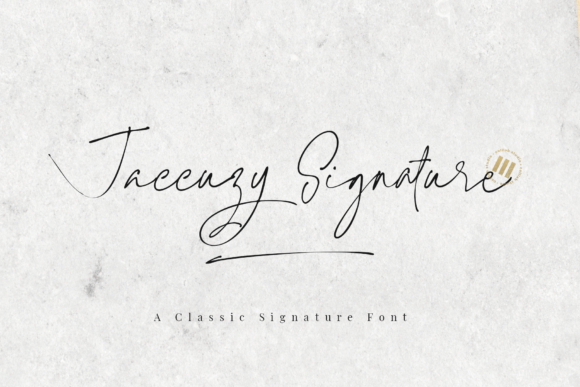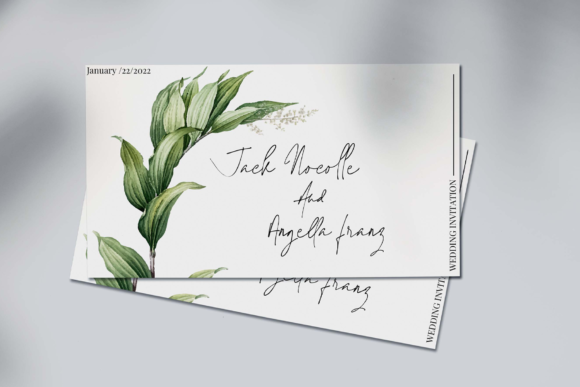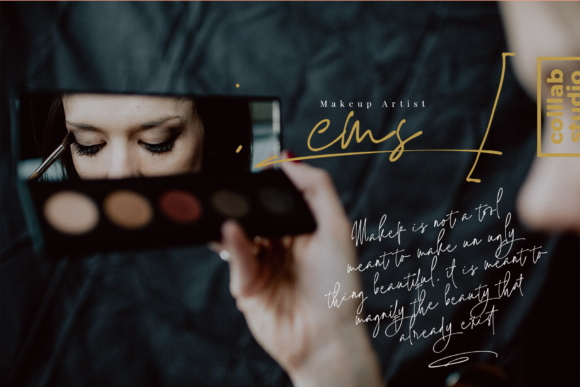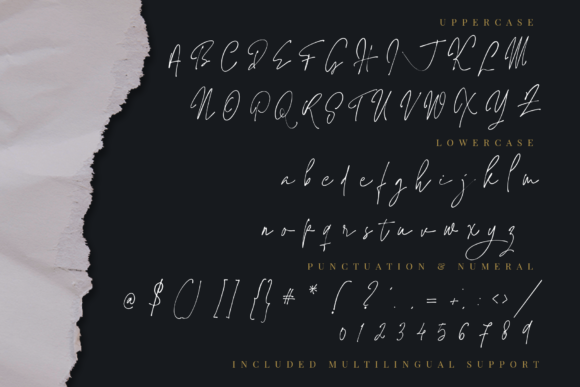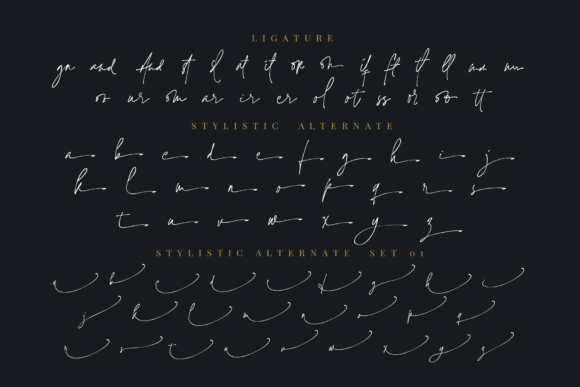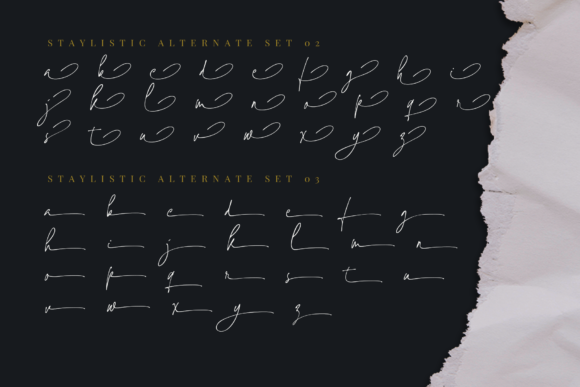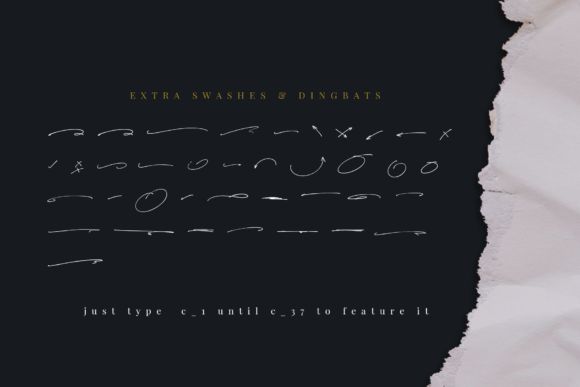
Unleashing the Art of Handwritten Charm
There’s something magical about putting pen to paper and watching your thoughts flow onto the page. The sound of scribbling, the smell of fresh ink, and the satisfaction of seeing your words come alive – it’s a feeling that never gets old. For designers, finding the perfect font to capture that handwritten essence can be a game-changer.
Enter the Jaccuzy Signature Font, a timeless and incredibly relaxed handwritten font that’s sure to elevate your designs. Whether you’re crafting wedding invitations, creating quotes, or designing logos, this font brings a touch of elegance and sophistication to every project. Its PUA encoding makes it easy to access all the glyphs and swashes, giving you endless possibilities to customize your designs. With its varying baseline, smooth lines, and gorgeous glyphs, the Jaccuzy Signature Font is a valuable addition to any designer’s toolkit.
Jacuzzi Signature Font Key Features
- Unique Characteristics: The Jacuzzi Signature Font features a distinctive, modern design that is both elegant and sophisticated. The font’s unique characteristics include a flowing, cursive style with subtle flair and a sense of movement.
Jaccuzy Signature Font Review
As a designer, I was excited to dive into the Jaccuzy Signature Font. Here’s my honest review:
- Unique and stylish design: The Jaccuzy Signature Font has a distinct, modern look that can add a touch of elegance to any project.
- High-quality fonts: The font is well-designed and smooth, making it perfect for digital and print applications.
- Wide character set: The font includes a comprehensive set of characters, including international characters and ligatures.
- Limited font sizes: The font may not be suitable for very large or very small font sizes, as it can become distorted.
- No bold or italic variants: While the font is stylish, it’s not available in bold or italic variants, which can limit its use in certain applications.
Overall, I think the Jaccuzy Signature Font is a great choice for designers looking for a unique and stylish font. While it has some limitations, its high-quality design and wide character set make it a solid choice for digital and print projects. With a little creativity, you can work around its limitations and achieve amazing results.
Practical Application Guide for Jaccuzy Signature Font
Tips for Getting the Most Out of the Jaccuzy Signature Font
To get the most out of the Jaccuzy Signature Font, try using it in combination with bold or italic text to add emphasis to your design. You can also experiment with different font sizes and colors to create a unique visual effect.
Common Use Cases for the Jaccuzy Signature Font
The Jaccuzy Signature Font is commonly used
Alternatives to Jaccuzy Signature Font
The Jaccuzy Signature Font is a popular font used in various designs, but it may not be suitable for every project. Here are a few alternatives that designers can consider.